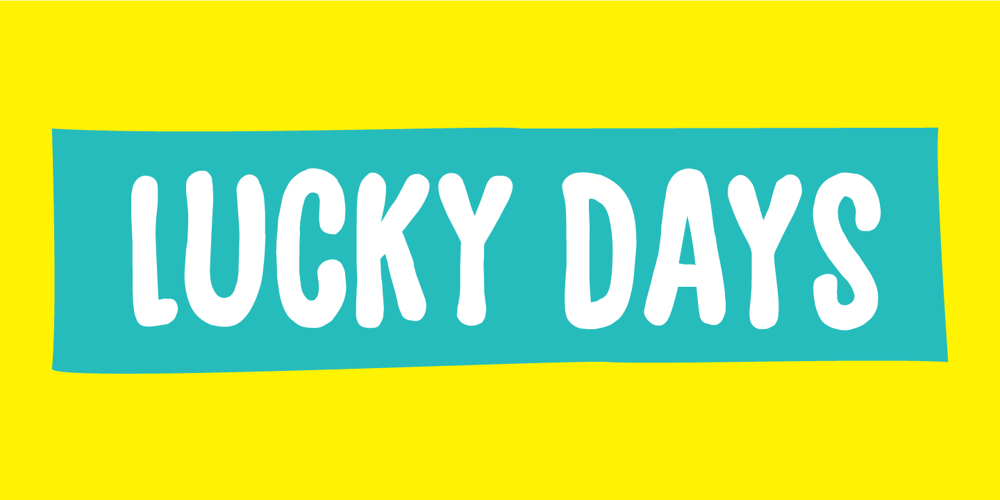
Lucky Days Font Family was designed by Jakob Fischer and published by PizzaDude.dk. Lucky Days contains 2 styles and family package options. This is your Lucky Day, and if you are really lucky…it could turn into Lucky Days! :)Just go ahead and type with Lucky Days, it has 6 different versions of each letter…and they are all handmade. The letters are super legible, and can be used for a great variety: posters, postcards, invitations, comics or crafts. I even imagined a label for a beer, using this font!!!